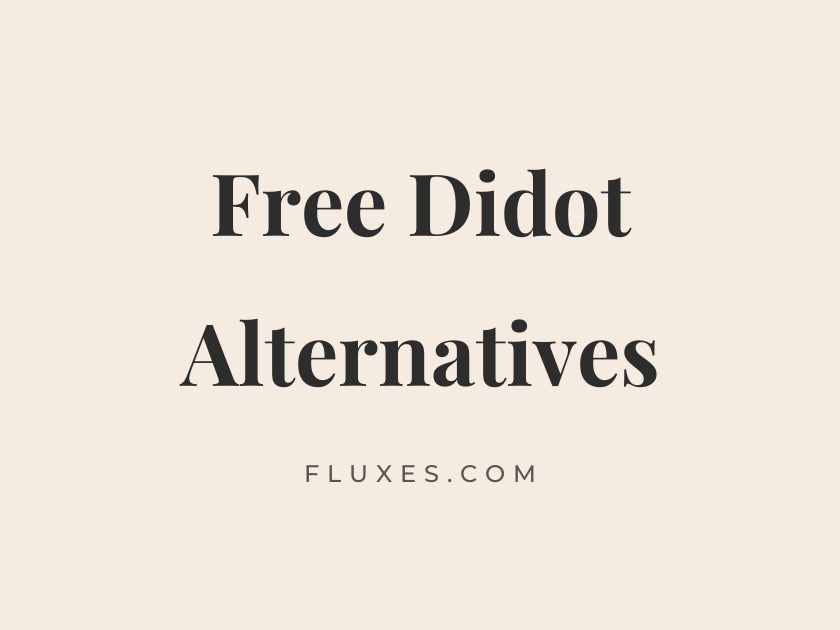
13 Best Free Fonts Alternatives to Didot
Didot has defined a certain strain of high fashion editorial for two centuries, all razor-thin hairlines and shocking contrast between thick and thin strokes. It is not a free font, and its closest commercial relatives are locked behind foundry paywalls, which sends a lot of designers looking for free fonts with that same Parisian glamour on Google Fonts. The good news is that modern-style serifs with real optical contrast have become one of the richer categories in the library, so there are legitimate alternatives here rather than distant approximations.
What follows are the fonts that actually capture some version of that Didot feeling: the vertical stress, the delicate serifs, the sense of restrained luxury. Some lean closer to fashion-magazine drama, others soften the contrast for better readability at text sizes, but each one earns its place as a free alternative rather than a vague gesture toward “elegant serif.”
1. Playfair Display
Vogue-worthy elegance for the modern editorial page
Playfair Display is probably the single most reached-for Didot substitute on Google Fonts, and for good reason. It was built specifically to translate the high-contrast, transitional-to-modern serif tradition into a screen-friendly family, so the thin strokes hold up better at small sizes than true Didot ever did.
It reads as confident rather than fragile, which makes it a favorite for magazine headlines, wedding branding, and fashion logotypes. Pair it with a plain grotesque like Work Sans for body copy and the contrast does the rest of the work.
2. Bodoni Moda
Timeless couture, rendered in razor-sharp type
If you want the closest structural cousin to Didot, Bodoni Moda is it. Bodoni and Didot developed almost in parallel, and this variable revival keeps the tight bowls, flat serifs, and dramatic thick-thin swing intact while adding a optical size axis that actually adjusts the contrast for display versus text use.
It is the font to reach for when a client says “we want something like Vogue” and means it literally.
3. Fraunces
Softened drama for a warmer fashion story
Fraunces takes the modern-serif contrast and roughs up its edges with a slightly wonky, almost hand-finished warmth. It is less austere than Didot but shares the tall x-height and thin hairlines, making it a good pick when a brand wants fashion polish without feeling cold or aloof.
4. Cormorant
Delicate serifs for perfume and beauty branding
Cormorant is built for jewelry boxes, perfume labels, and anything that needs to whisper rather than shout. Its extreme thinness and high contrast make it gorgeous at large display sizes and genuinely tricky below that; treat it as a headline or logotype font only.
5. Prata
A single confident weight, styled like haute couture
Prata offers just one weight, and it commits fully to it: narrow proportions, sharp serifs, and enough contrast to feel decidedly Didot-adjacent without trying to be a full editorial system. It works best in short bursts, like a masthead or a monogram, rather than paragraphs.
6. Marcellus
Understated luxury for classic fashion houses
Marcellus trades Didot’s extreme contrast for something calmer and more classical, closer to a Roman inscription filtered through Art Deco taste. It suits heritage fashion labels and old-world hotel branding better than runway drama, and it stays legible at smaller sizes where more extreme modern serifs start to fray.
7. Abril Fatface
Bold, glossy headlines for the fashion-forward brand
Abril Fatface pushes the contrast even further than Didot in places, with heavy, glossy strokes that feel more like a magazine cover line than a caption. Use it sparingly and large; at body sizes the thin hairlines simply disappear.
8. Italiana
Refined minimalism inspired by Italian fashion houses
Italiana is lean, quiet in personality if not in name, and carries an unmistakable air of Milanese restraint. The letterforms are narrow with subtle contrast, so it reads as sophisticated without ever feeling as severe as true Didot.
9. Yeseva One
Statement headlines with a modern editorial edge
Yeseva One is chunkier and friendlier than most fonts on this list, but it keeps enough of the contrasted, ball-terminal detailing to feel fashion-adjacent rather than generic. It suits lifestyle and beauty branding that wants warmth alongside its elegance.
10. Oswald
Structured contrast for a directional fashion statement
Oswald is an unexpected inclusion, condensed and industrial rather than delicate, but its engineered proportions and tall letterforms give it a fashion-poster energy that pairs surprisingly well with Didot-style body serifs in editorial layouts.
11. Gilda Display
Bold contrast for cover lines and mastheads
Gilda Display is a single confident weight built for headlines, with the kind of decisive thick-thin transitions that make it read instantly as fashion type. It has less finesse than Playfair or Bodoni Moda but more punch, which suits streetwear-adjacent or bold beauty branding.
None of these fonts are Didot, and none pretend to be. But together they cover the same emotional territory, from razor-sharp couture drama to softer editorial warmth, and every one of them is free to download and use today.